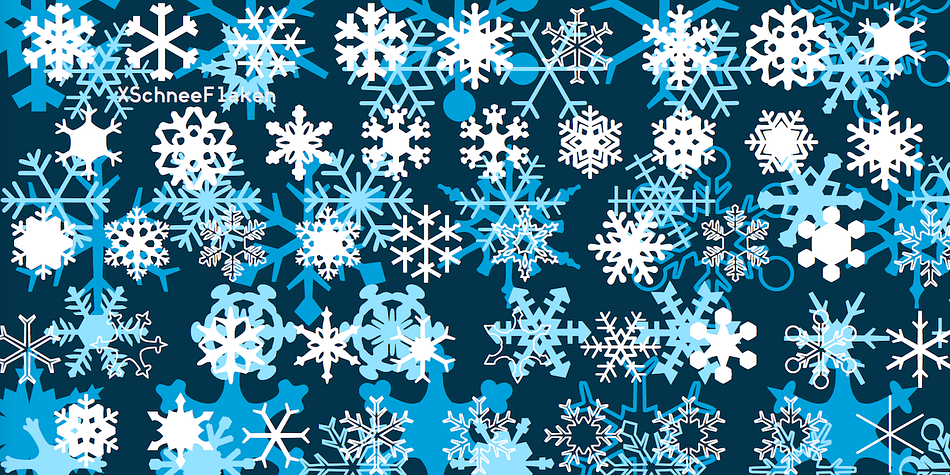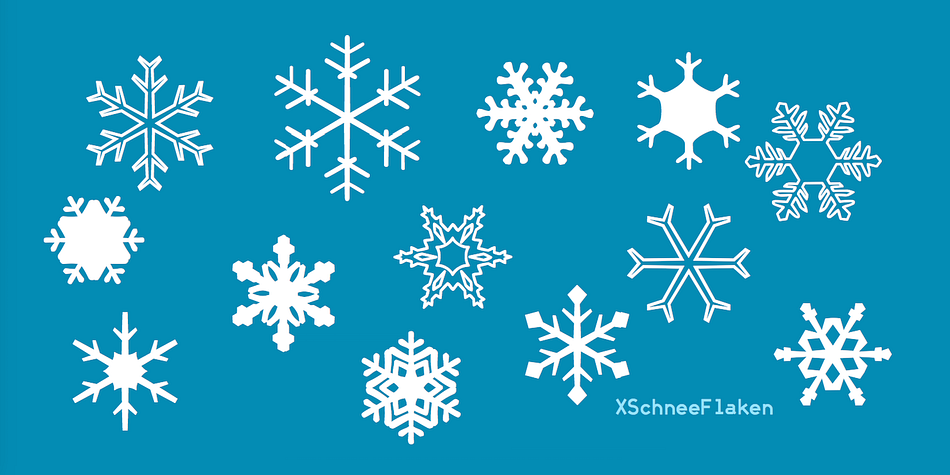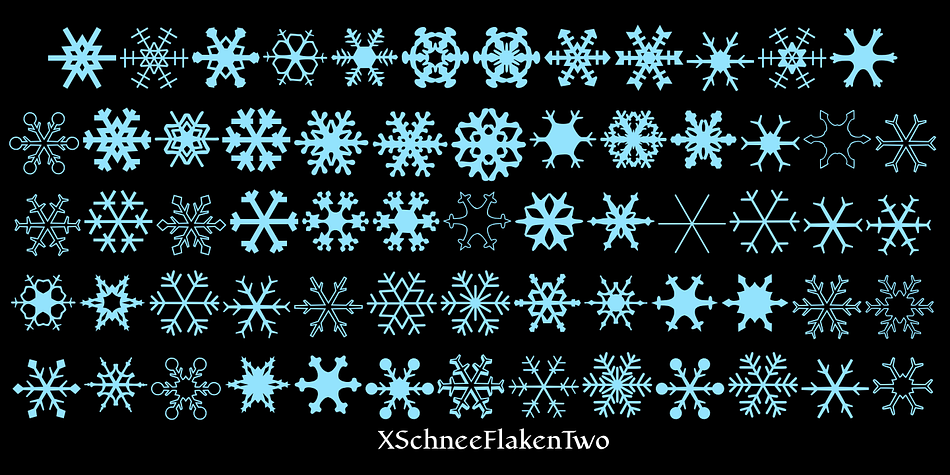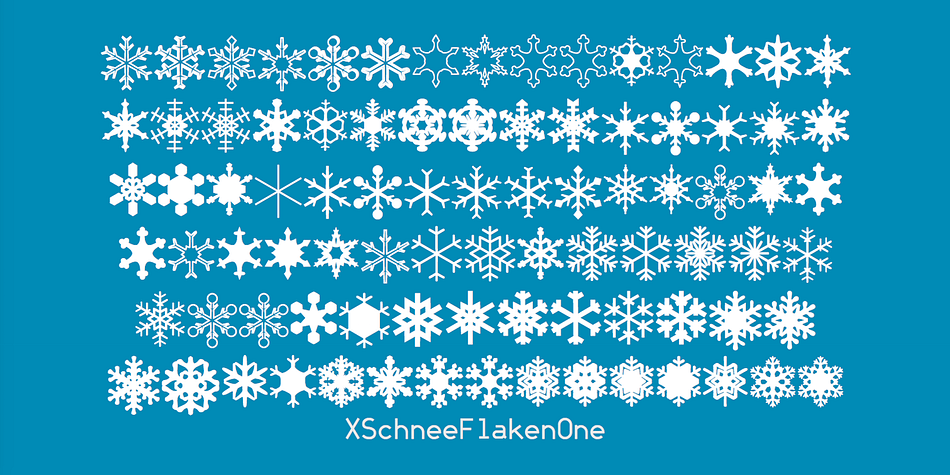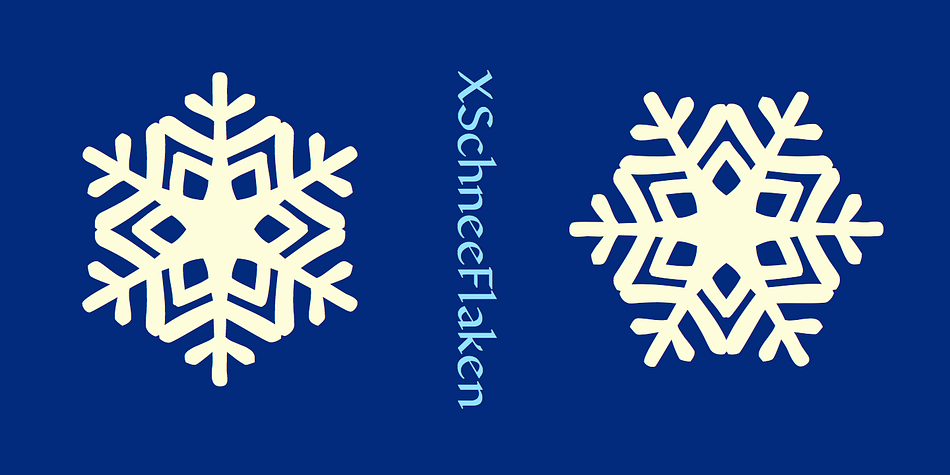
Designed by Robert Schenk, XSchneeFlaken is a dingbat font family. This typeface has two styles and was published by Ingrimayne Type.
Two typefaces of snowflake designs; the alternative has the same designs but rotated 30 degrees.